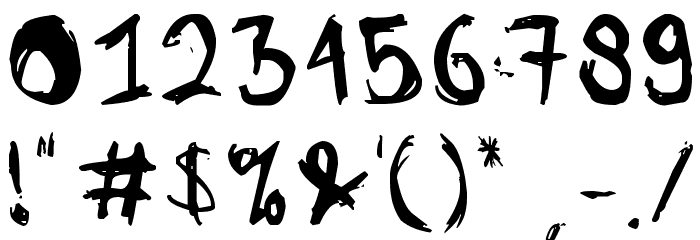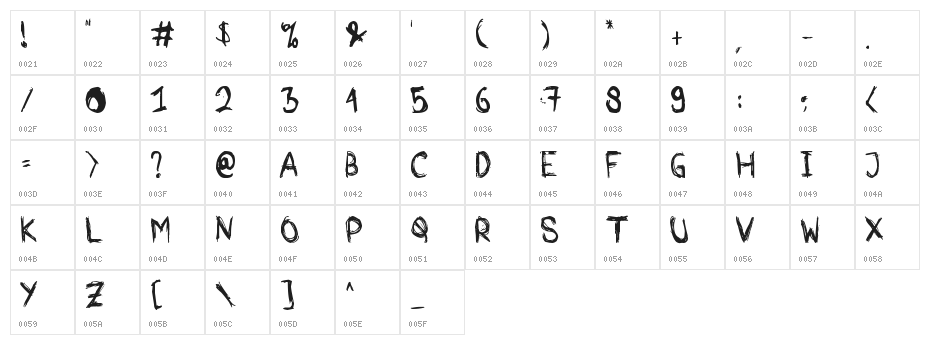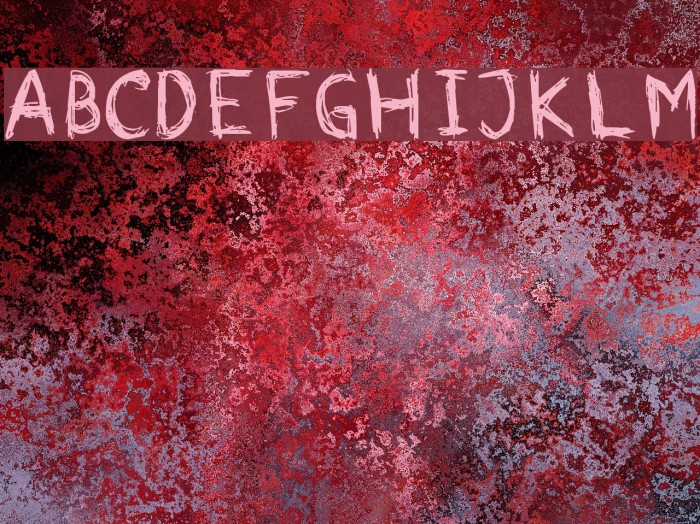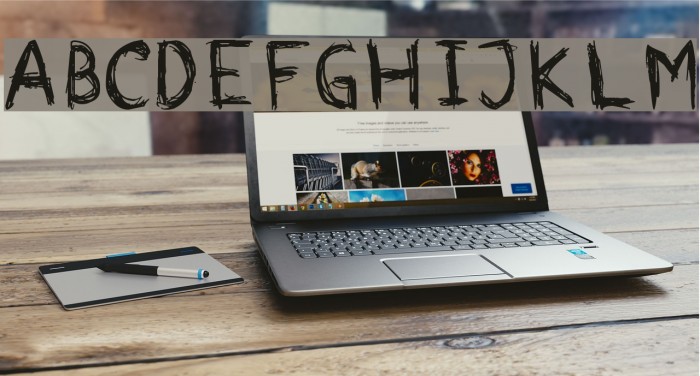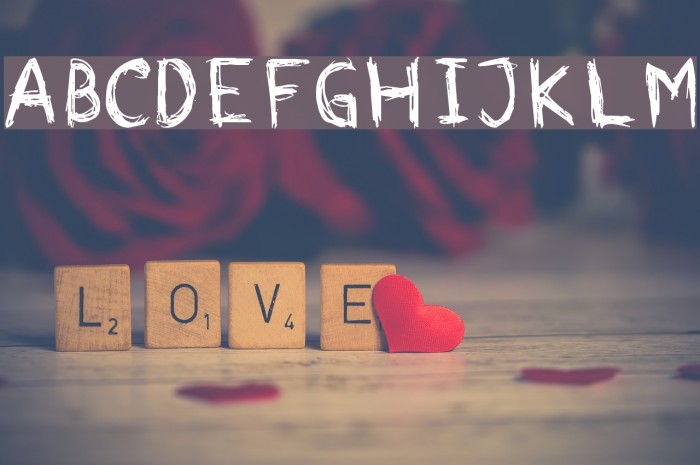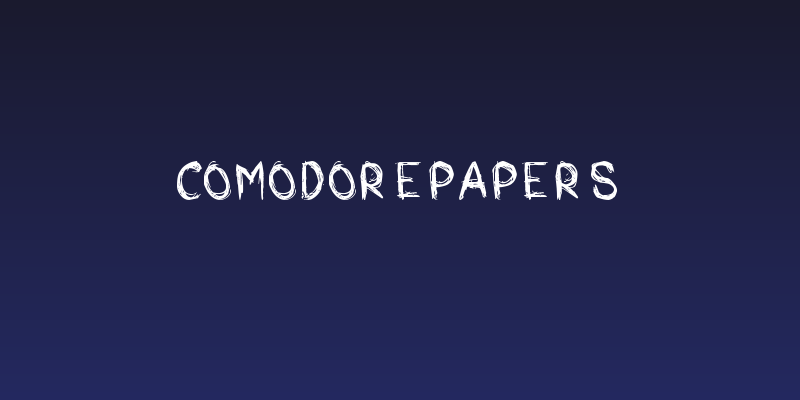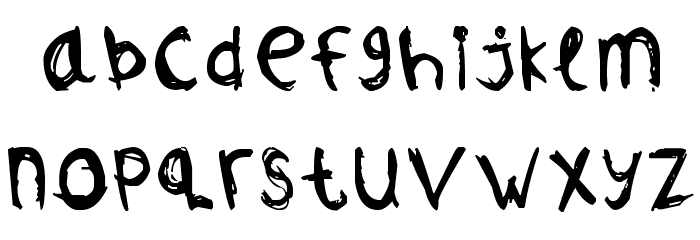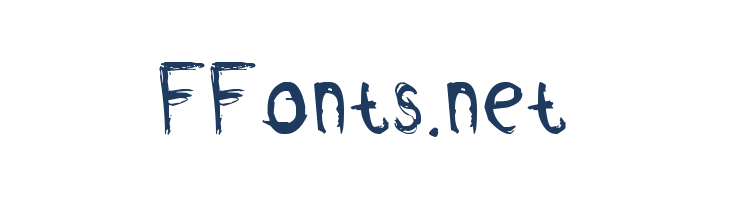
comodorepapers Font
comodorepapers Description
This font features a bold and expressive style with a hand-drawn appearance, characterized by its rough, textured strokes and irregular shapes. The letters exhibit a playful yet edgy aesthetic, making it stand out with its unique, artistic flair. The uppercase and lowercase letters maintain a consistent style, while the numbers and special characters complement the overall design. The font's organic and dynamic look is reminiscent of brush strokes, adding a sense of movement and energy. Its distinctive appearance makes it suitable for creative projects that require a bold statement.
| Use Case | Headlines, Logos, Artistic projects |
| Proposed Projects | Ideal for posters, album covers, artistic branding, and creative advertising. |